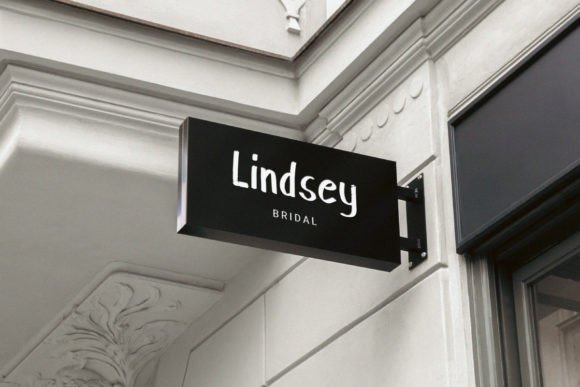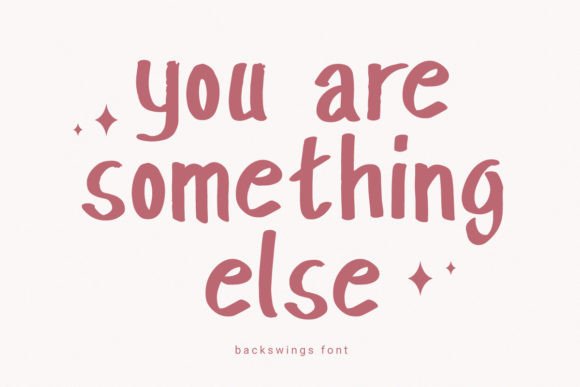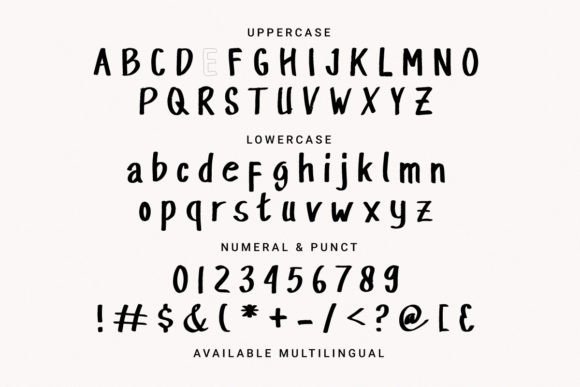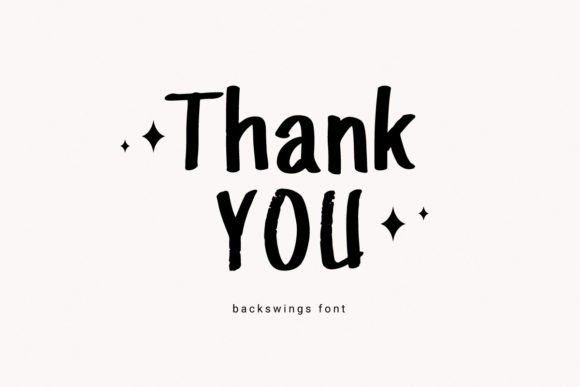
Introducing Backswings Font: The Ultimate Display Font for Casual Designs
Are you tired of using the same old fonts for your designs? Look no further! Backswings Font is here to revolutionize your creative projects with its cool and casual vibe. This adaptable display font is perfect for designers and crafters looking for a neat and informal font that can fit a wide range of design ideas.
What Makes Backswings Font Stand Out?
Backswings Font is a unique and stylish display font that can elevate your designs to the next level. Its casual and laid-back feel makes it perfect for projects that require a relaxed and approachable tone. Whether you’re designing a logo, creating a t-shirt print, or working on a sports design, Backswings Font is the perfect choice.
Key Features of Backswings Font
- Cool and Casual Vibe: Backswings Font has a unique and stylish design that gives off a cool and casual vibe, perfect for informal designs.
- Adaptable: This font is highly adaptable and can fit a wide range of design ideas, from logos to t-shirt prints and sports designs.
- Neat and Informal: Backswings Font has a neat and informal design that makes it perfect for creative projects that require a relaxed tone.
- High-Quality Design: This font is designed with high-quality craftsmanship, ensuring that it looks outstanding in a wide range of contexts.
Backswings Font is perfect for designers and crafters who want to add a unique touch to their creative projects. Whether you’re working on a personal project or a client’s design, this font is sure to impress. Its versatility and adaptability make it a great addition to any design toolkit.
Use Cases for Backswings Font
Backswings Font can be used in a variety of design projects, including:
- Logos: Create a unique and memorable logo for your brand or business with Backswings Font.
- T-Shirt Printing: Design eye-catching t-shirt prints with this cool and casual font.
- Sports Designs: Use Backswings Font to create stunning sports designs, such as jerseys, posters, and flyers.
- Posters and Flyers: Add a touch of personality to your posters and flyers with this stylish display font.
Why Choose Backswings Font?
- Unique Design: Backswings Font has a unique and stylish design that sets it apart from other fonts.
- High-Quality Craftsmanship: This font is designed with high-quality craftsmanship, ensuring that it looks outstanding in a wide range of contexts.
- Versatility: Backswings Font is highly versatile and can be used in a variety of design projects.
In conclusion, Backswings Font is a cool and casual display font that’s perfect for designers and crafters looking for a unique and stylish font. Its adaptability, neat and informal design, and high-quality craftsmanship make it a great addition to any design toolkit. Whether you’re working on a logo, t-shirt print, sports design, or any other creative project, Backswings Font is sure to impress.